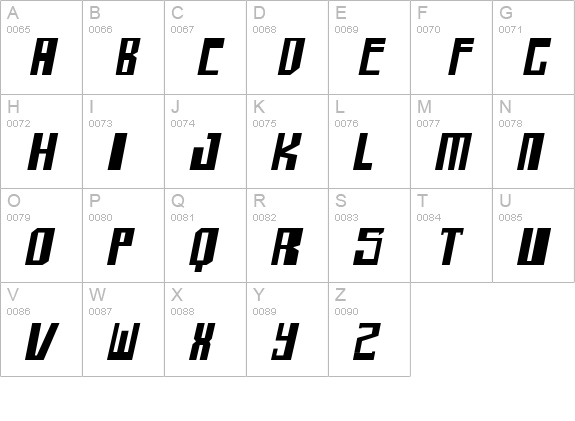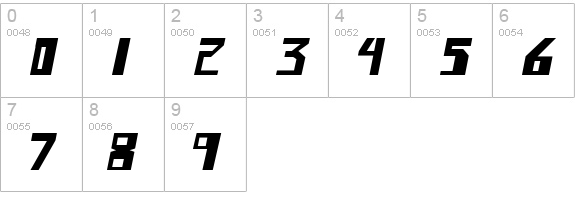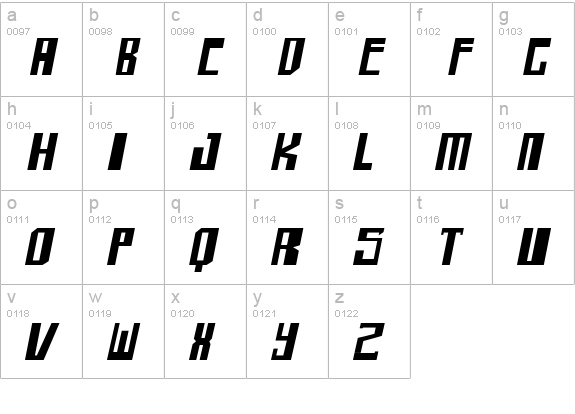
shellhead Bold Italic Font Details
shellhead Bold Italic is a strong, high-contrast, italic variant in the shellhead typeface family \xE2\x80\x94 well suited to headlines, attention-grabbing titles, and strong calls-to-action.
Introducing Shellhead Bold Italic - a striking and modern font that exudes boldness and sophistication. With its sleek lines and distinctive curves, Shellhead Bold Italic is perfect for making a statement in your designs. This versatile font is ideal for headlines, titles, logos, and branding projects that require a touch of elegance and flair. And the best part? Shellhead Bold Italic is available for free download at FontsMarket.com. That's right, you can elevate your designs with this eye-catching font without spending a penny. So why wait? Grab your free copy of Shellhead Bold Italic today and add a touch of style to your creative projects.